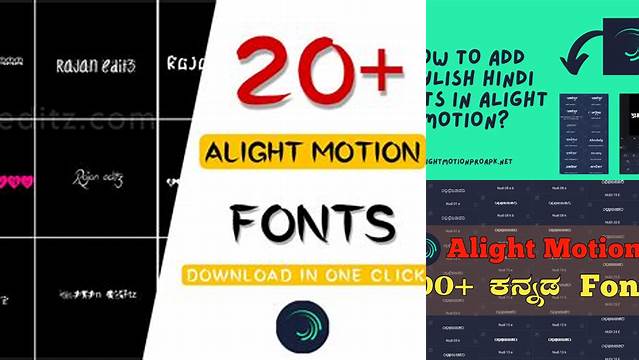
Get Stylish: Fonts For Alight Motion
Hey guys! Ever wondered how to jazz up your Alight Motion videos with some killer text? Well, you're in the right place! We're diving headfirst into the world of fonts link for Alight Motion, and trust me, it's a game-changer. Forget boring, default fonts; we're talking about unlocking a universe of styles to make your videos pop. Whether you're a seasoned video editor or just starting out, finding the perfect font can elevate your content from meh to magnificent. This guide will be your ultimate buddy, navigating you through the ins and outs of fonts, where to find them, and how to get them working seamlessly in Alight Motion. So, buckle up, buttercups! It's time to turn those creative visions into reality with the perfect typography.
Once you've got your chosen fonts downloaded, things get really exciting! You can begin the process of curating the best selection to make your videos stand out. Remember, the choice of font also reflects your personal style and the message you want to convey, so choose wisely. The best part is that there are so many free options available to help get you started. The possibilities are endless and limited only by your creativity. Also, think about the vibe you want to create. A handwritten font can add a personal touch, while a bold, modern font screams 'professional.' You can even mix and match fonts to create a dynamic look.
Consider the legibility of the font, especially if it is for use in a video. Some fonts can be difficult to read, especially at smaller sizes or on a busy background. Always check the licenses to ensure you can use the fonts commercially if needed. Be mindful of the overall design of your video. A great font can be ruined by being paired with the wrong design. When choosing fonts, consider the purpose of your video. Is it a fun, lighthearted video or a serious educational one? The font should match the tone.